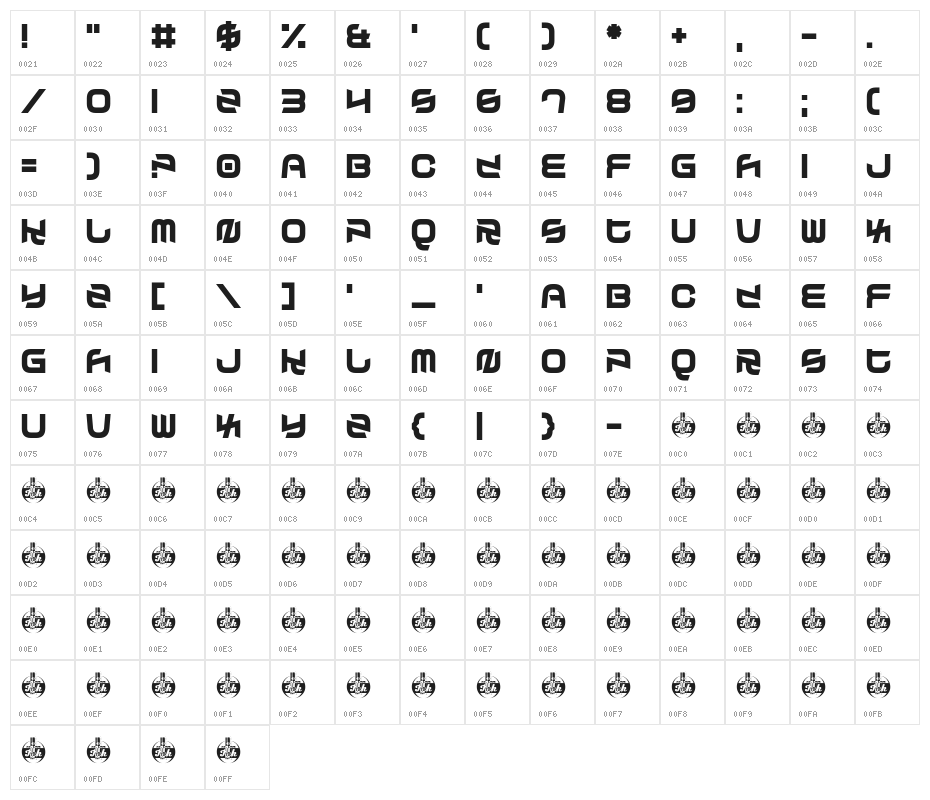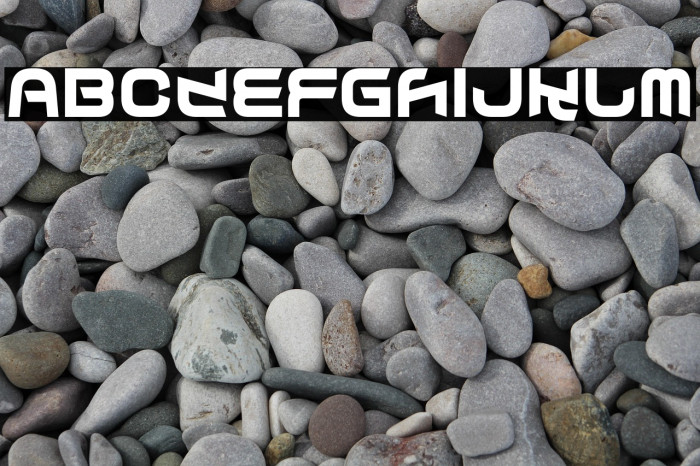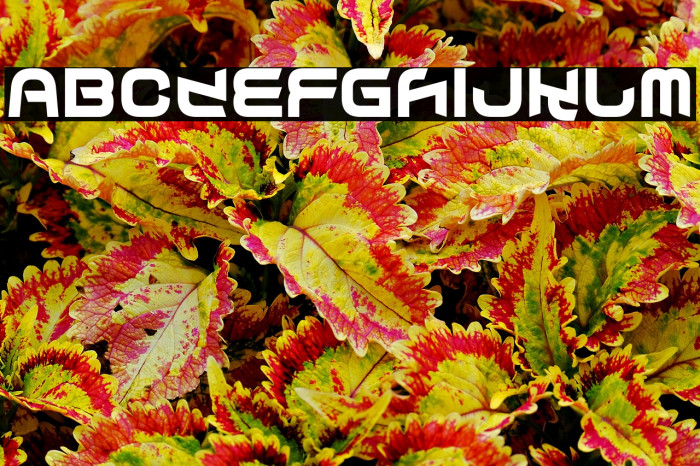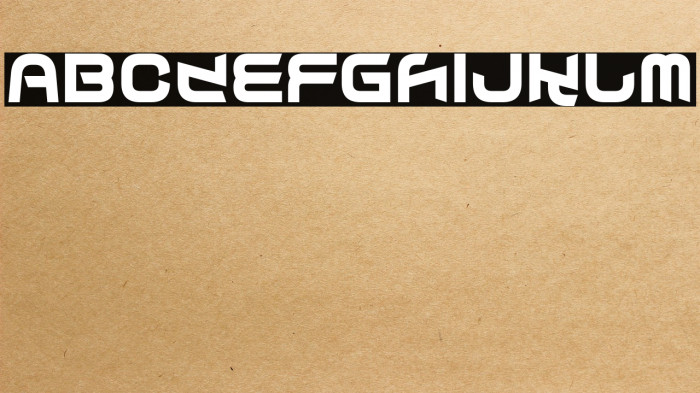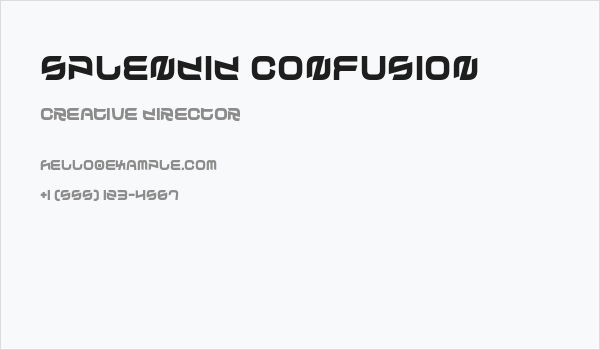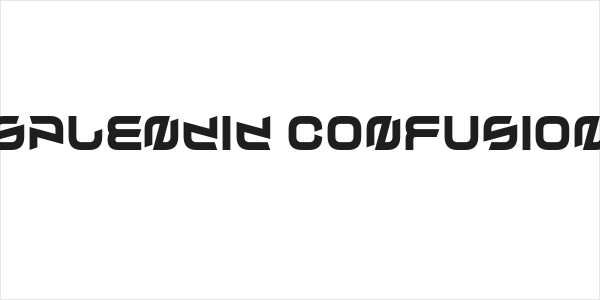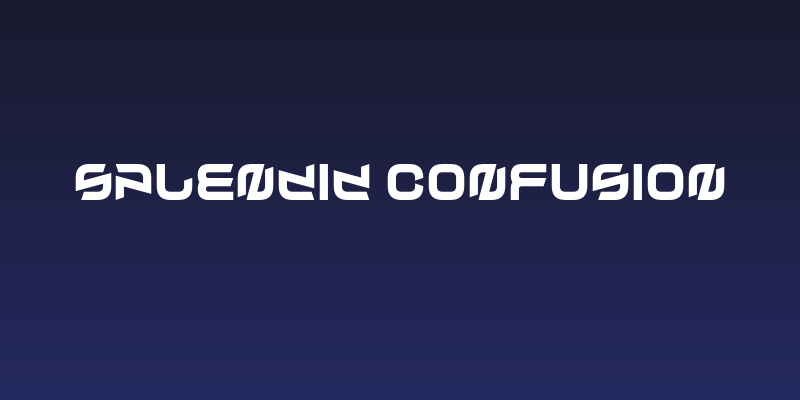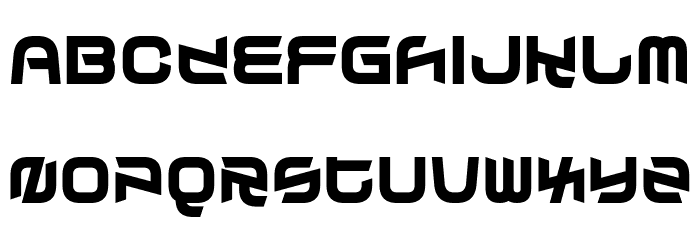
Splendid Confusion Font
Splendid Confusion Description
This font showcases a bold and futuristic design with a unique geometric style. The characters are crafted with sharp angles and curves, creating a dynamic and modern appearance. The uppercase and lowercase letters maintain a consistent width, contributing to a uniform look. The numbers and special characters follow the same design principles, ensuring a cohesive visual experience. The font's distinct style makes it stand out, with each character featuring a combination of straight lines and rounded edges. This design choice gives the font a sense of movement and energy, making it suitable for projects that require a contemporary and eye-catching aesthetic.
| Proposed Projects | Ideal for sci-fi themed designs, tech branding, video game titles, and modern advertising. |